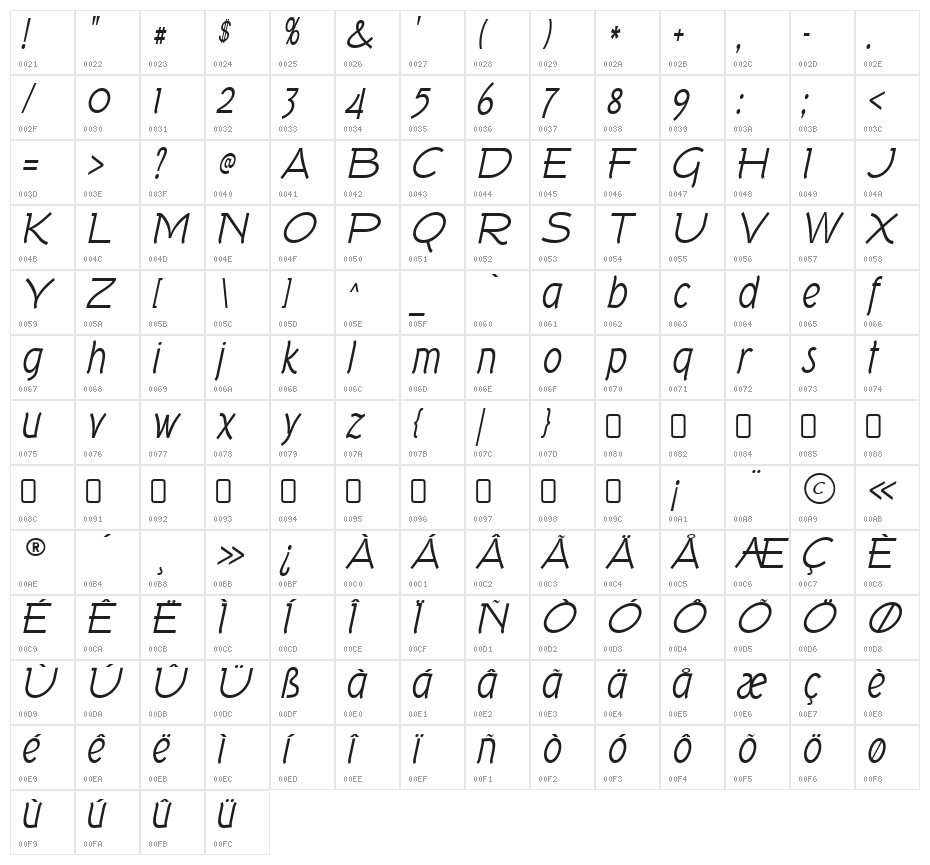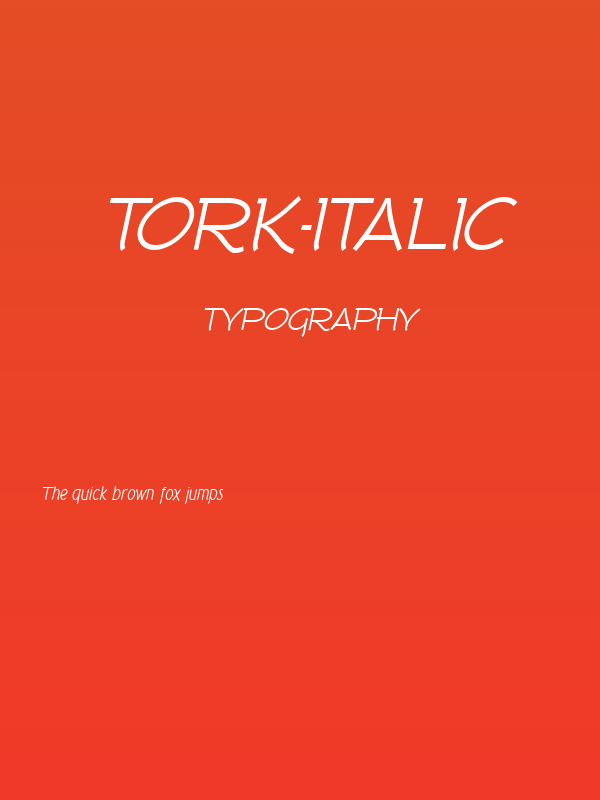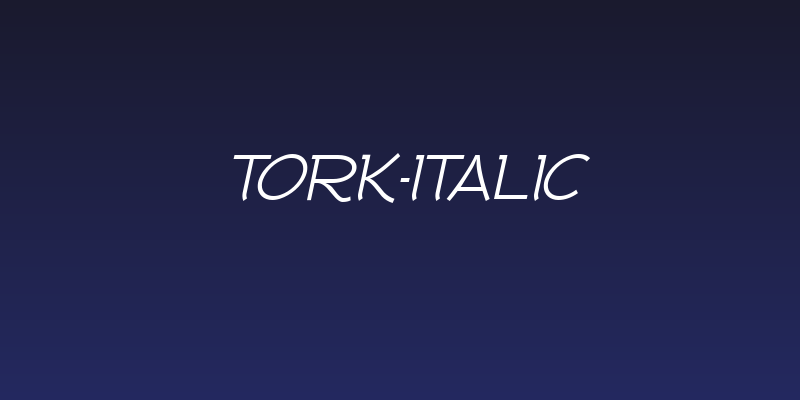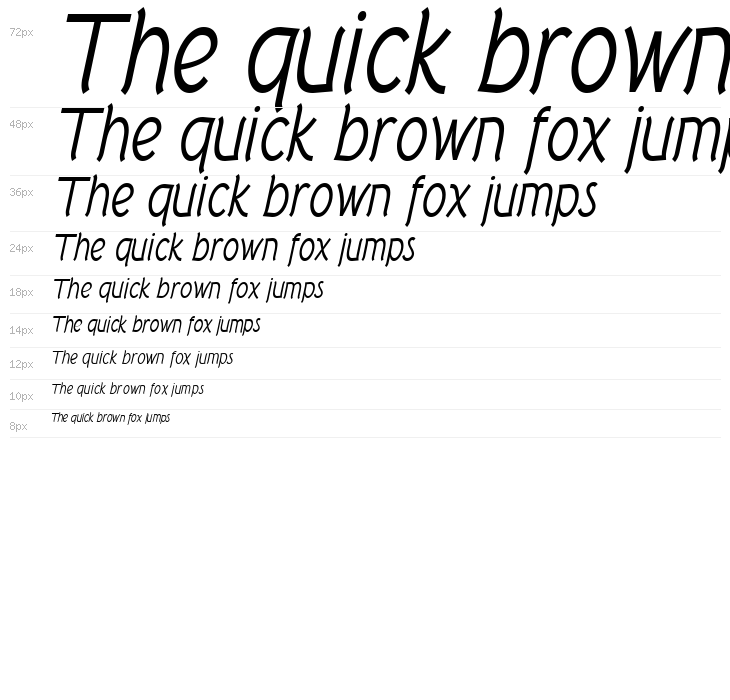
Tork-Italic Font
Tork-Italic Description
This font features a dynamic and fluid italic style, characterized by its slanted and slightly elongated letterforms. The uppercase letters exhibit a sleek and modern aesthetic, with clean lines and a consistent slant that adds a sense of movement. The lowercase letters maintain a harmonious flow, complementing the uppercase with their rounded and slightly cursive appearance. The numerals are well-proportioned, aligning seamlessly with the overall style. Special characters are thoughtfully designed, maintaining the font's cohesive look. The font's overall appearance is both elegant and contemporary, making it suitable for a variety of design applications.
| Use Case | Headlines, Logos, Editorial design |
| Proposed Projects | Ideal for branding, editorial design, and advertising where a modern and elegant touch is desired. |